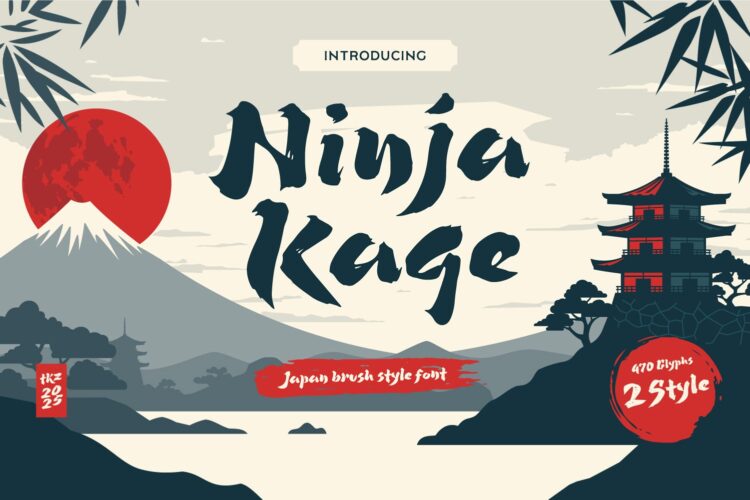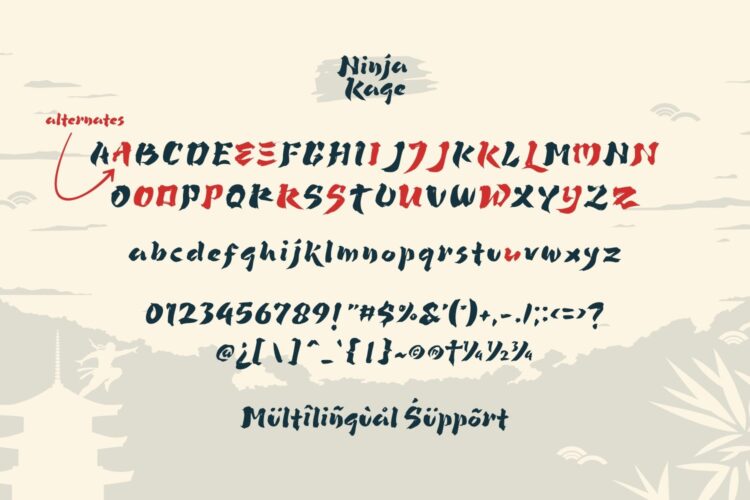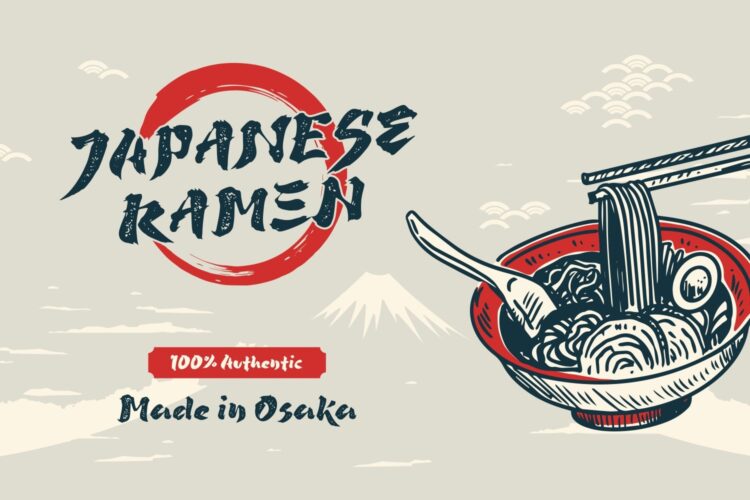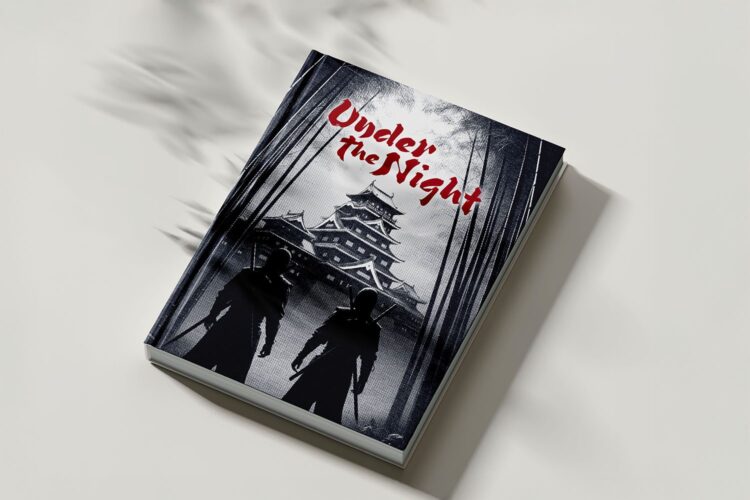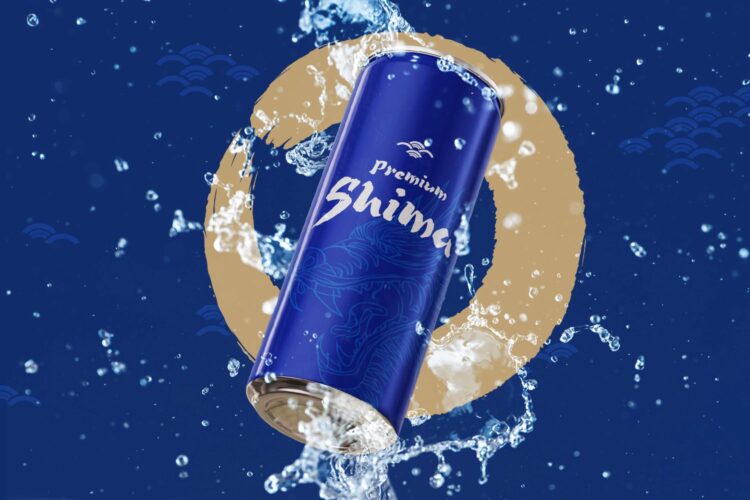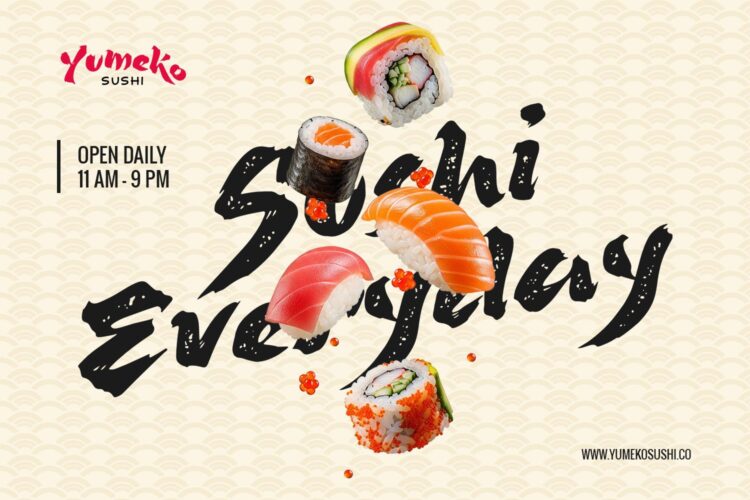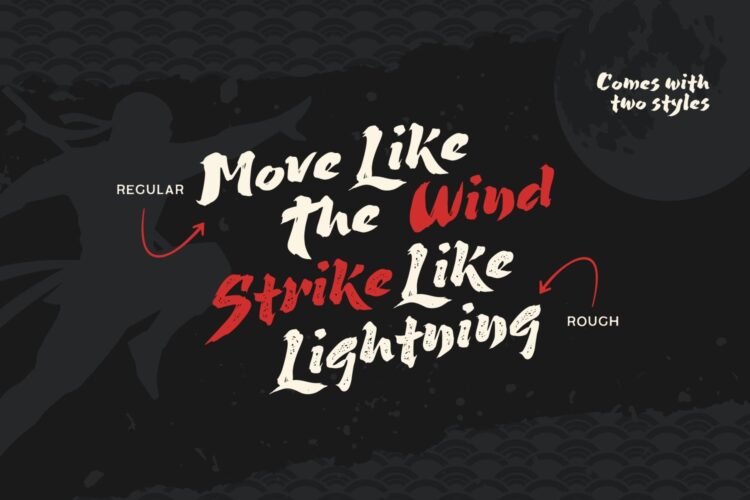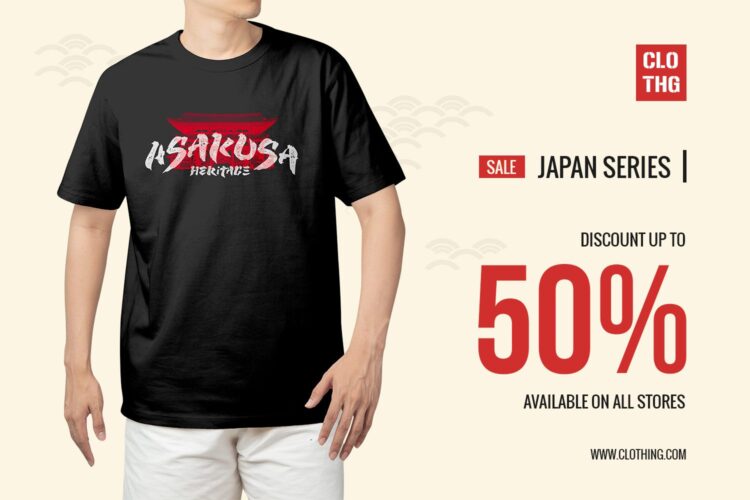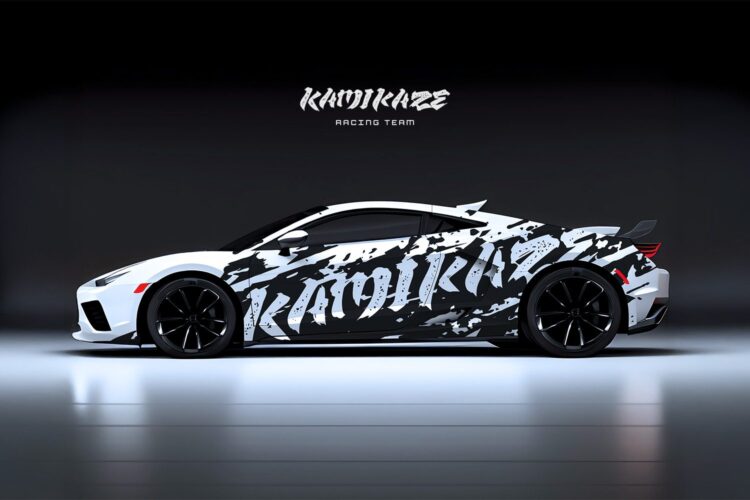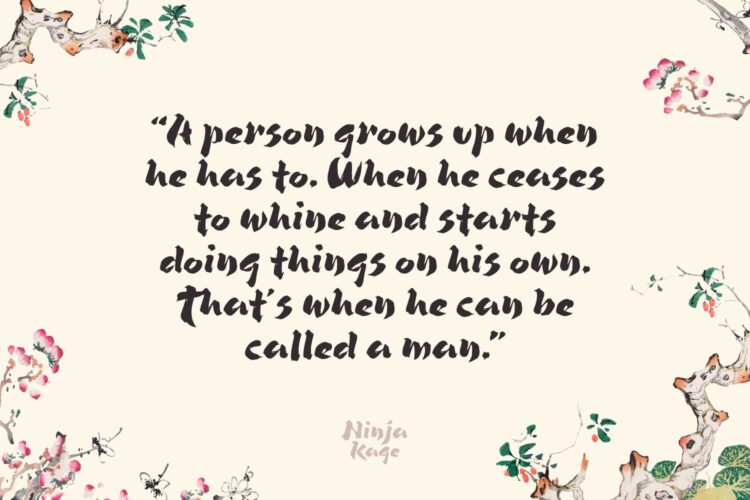
Japan Brush Style Font
Ninja Kage Regular
Ninja Kage Rough
Ninja Kage is a dynamic brush font with a natural feel, inspired by Japanese calligraphy. With numerous alternates and ligatures, it makes your audience question whether it’s a font or real handwriting.
Ninja Kage has Regular and Rough styles, making it perfect for logos, movie titles, game titles, posters, book designs, branding materials, and more, this font brings authenticity to any creative project!
Features :
• Standards Characters
• Opentype (Alternates And Ligatures)
• Multilingual Support